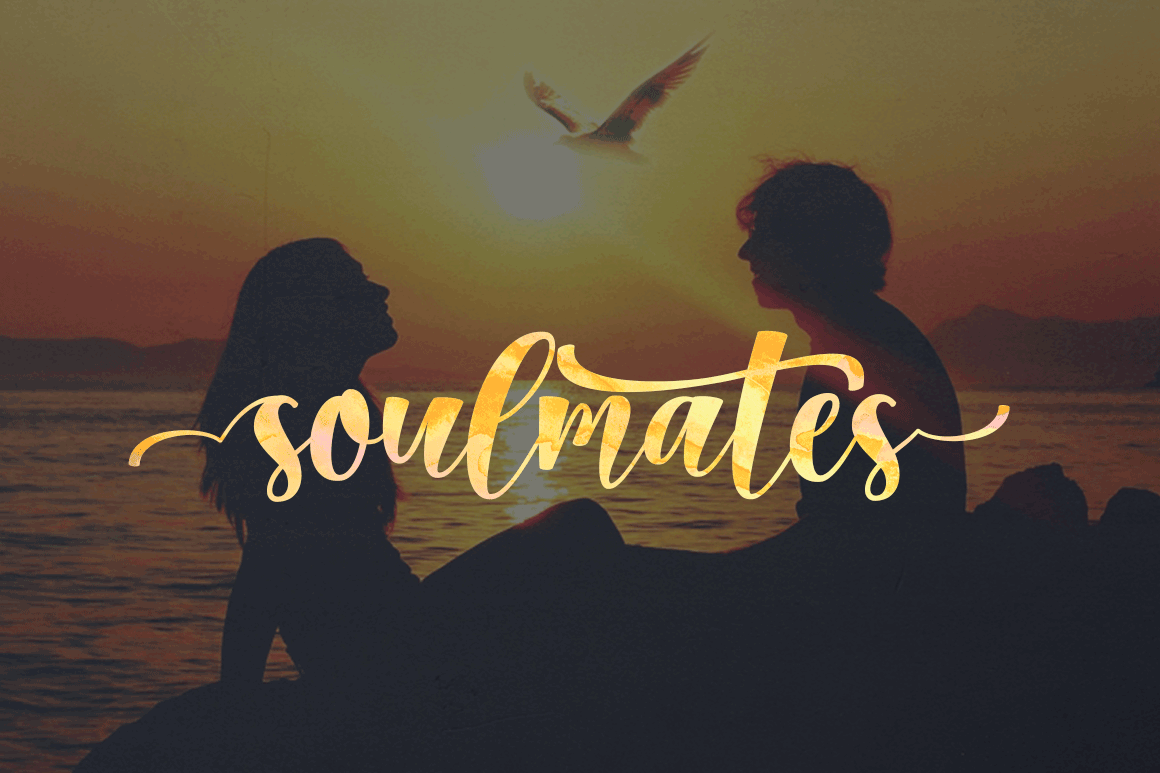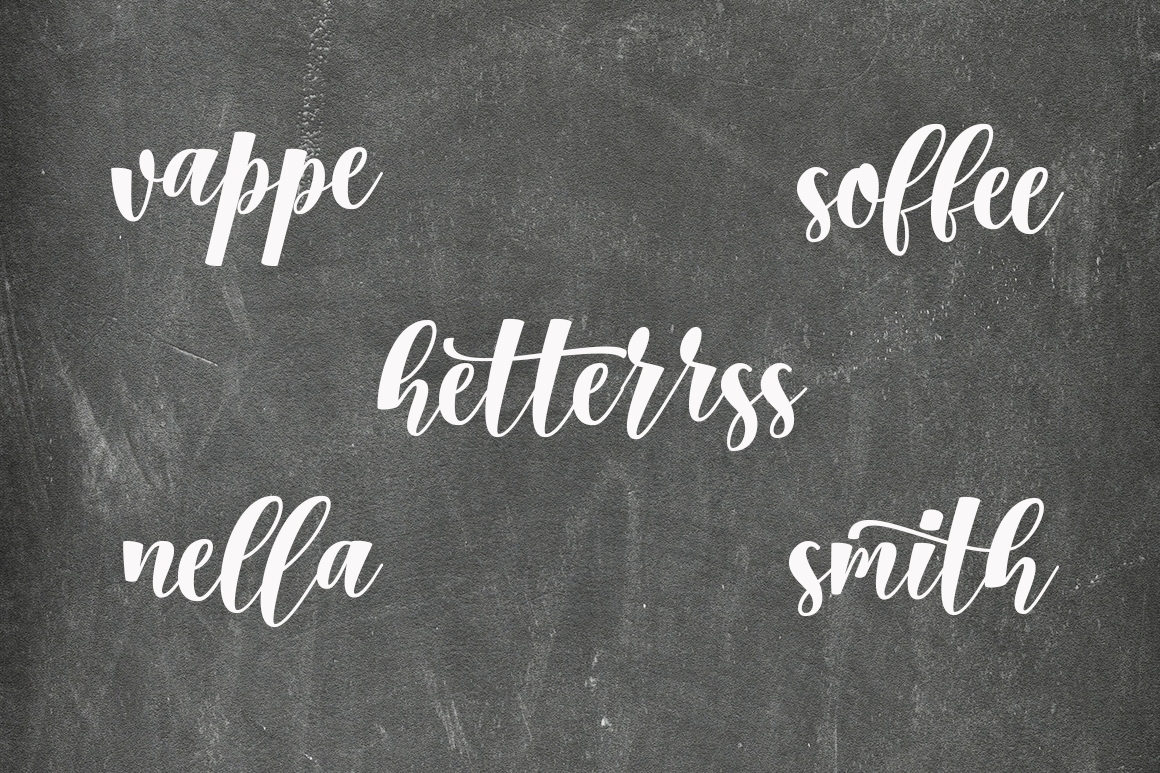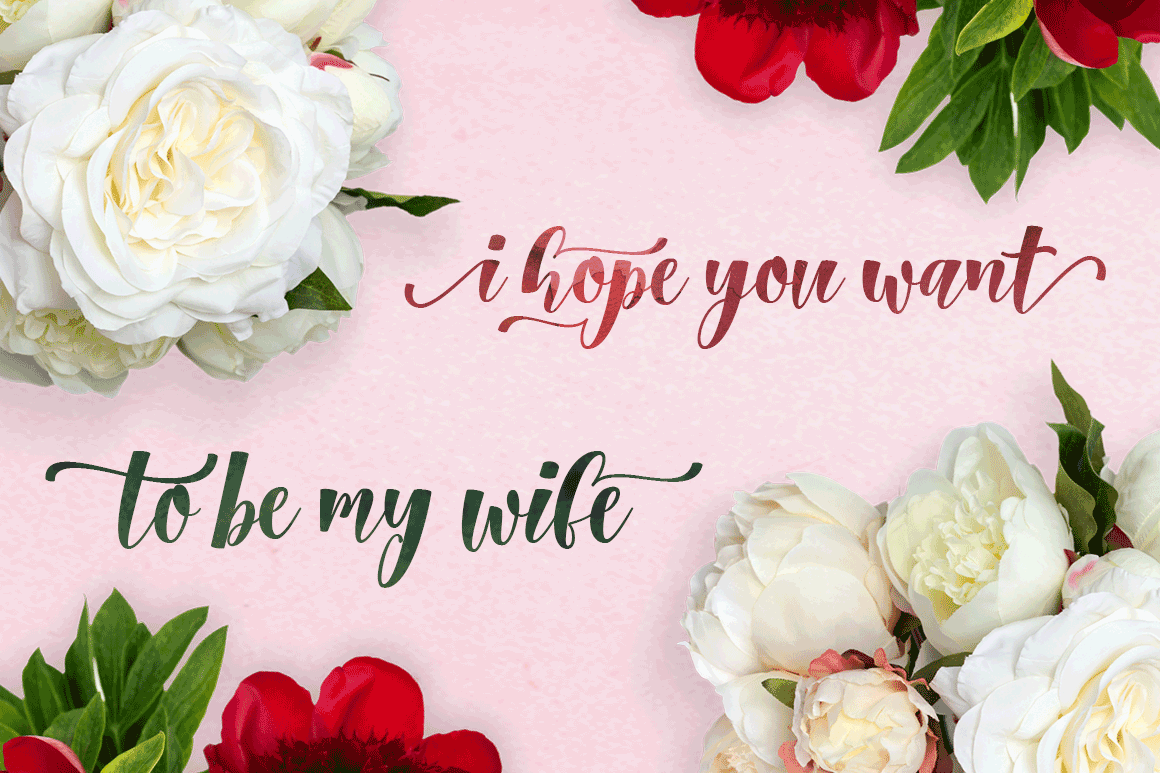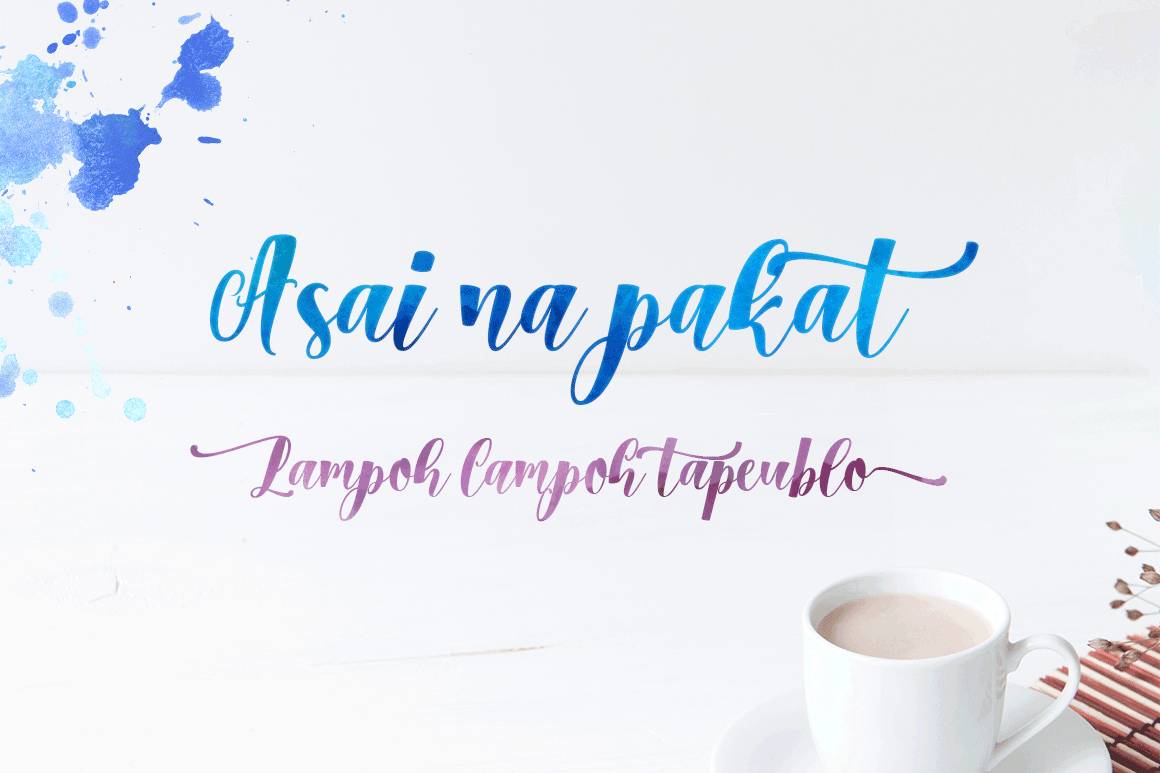
Chatting Font
About Chatting Font
The Chatting is a handmade font created by Meutuwah. It’s a fluid, happy font that is suitable for many different types of projects.